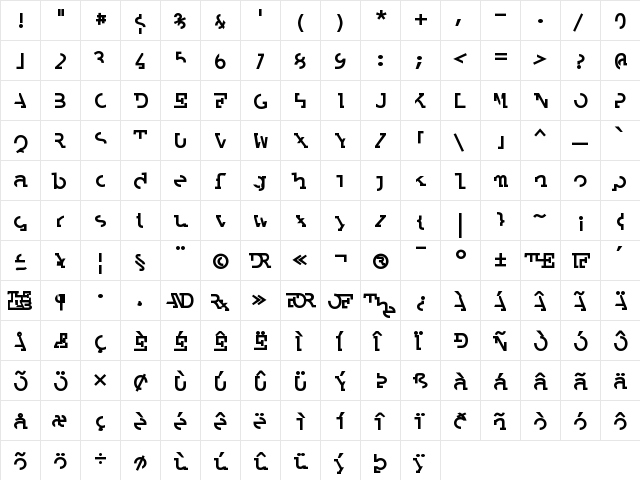
Labrat Bold
| Designer | Apostrophe (') |
Design Context for Labrat Typeface
Labrat is a composed and adaptable typeface that performs quietly and consistently across a wide range of design contexts. The heavy weight commands attention and anchors typographic hierarchies.